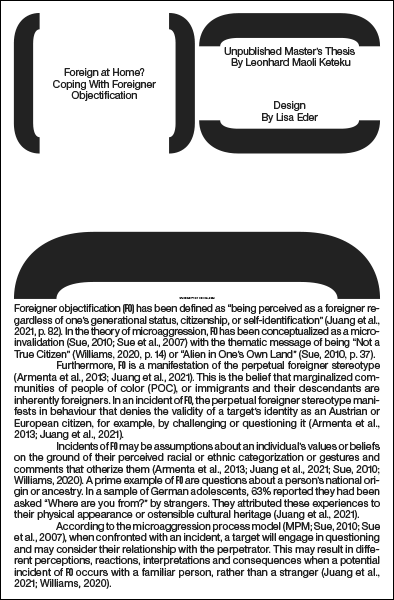
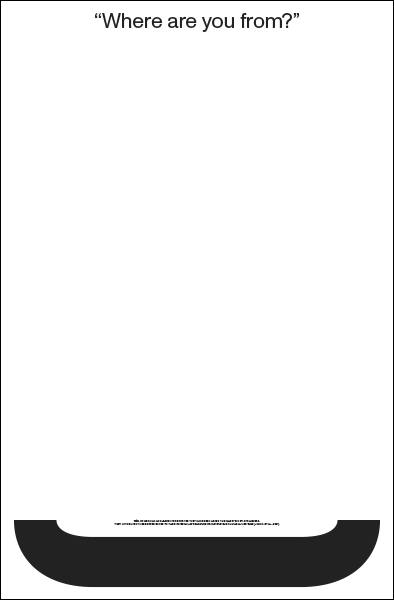
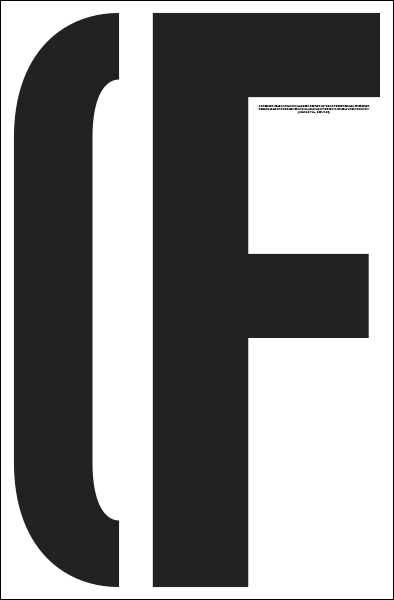
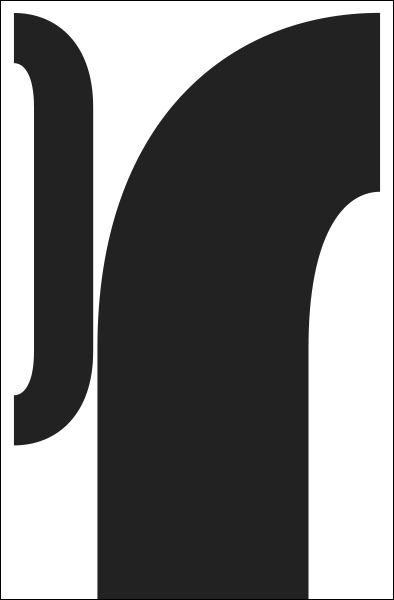
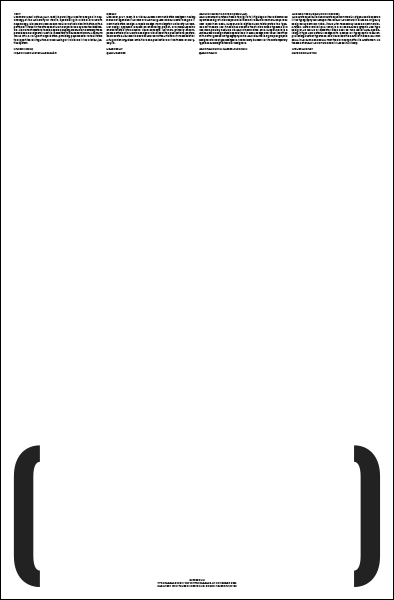
Text
Leonhard Maoli Keteku (AUT, 1995) is pursuing a Master’s degree in Psychology at the University of Vienna, specializing in Clinical and Health Psychology. His re- search focuses on racial and ethnic discrimination, with a particular interest in the stress and trauma experienced by affected individuals. His current master’s thesis explores coping mechanisms among those perceived as foreigners in Austria. In addition to his academic work, Leonhard works with a non-profit organisation, pro- viding psychosocial rehabilitation to support the reintegration and well-being of individuals in the criminal justice system.
Gestaltung
Lisa Eder (AUT, 1993) is a Vienna-based communication designer, having worked at agencies in London and Hamburg. She holds a Master’s degree in Communication Design: Graphic Design from Kingston University London. Her design approach fo- cuses on channeling project- and media-specific characteristics into cohesive visual concepts. Her work primarily encompasses art direction and the design of visual identities, publications, posters, and websites. Lisa Eder is also a co-founder of the art and culture association Alltag, which organizes exhibitions and publications on the theme of everyday life. lisaeder.at, @iamlisaeder
Typografie
ABC Monument Grotesk (Regular) traces its origins to intriguing contours discovered by Swiss design studio Kasper-Florio in an online scan of Palmer & Rey’s 1884 New Speci- men Book. Kasper-Florio digitized and reinterpreted the typeface for modern use. It has since become the studio’s house typeface and has been publicly available via ABC Dinamo since 2018. Kasper-Florio is a Swiss-based design studio specialised in book design and visual identities with a strong focus on typography, while ABC Dinamo is a group of graphic designers turned type designers. The foundry is known for it’s contemporary typefaces and digital tools for designers. abcdinamo.com, kasper-florio.ch, @abcdinamo
AMB Grotesque(Bold Condensed) is a revival of Grotesque Commercial, a typeface discovered in the typography workshop of the ENSAV La Cambre in Brussels. Originally designed by Edmund Thiele, it was later released by Haas as Commercial-Grotesk. Mateo Broillet (CH, 1990) is a Brussels-based graphic and type designer, as well as an educator. Since 2021, he runs Atelier AMB, specializing in type and editorial design with a focus on typographic research, publishing, custom typefaces, and visual identities. Broillet holds a BA from ECAL in Lausanne and an MA from the Sandberg Instituut in Amster- dam. He teaches at ENSAV La Cambre and Sint Lucas in Antwerp. atelieramb.net, mateobroillet.ch